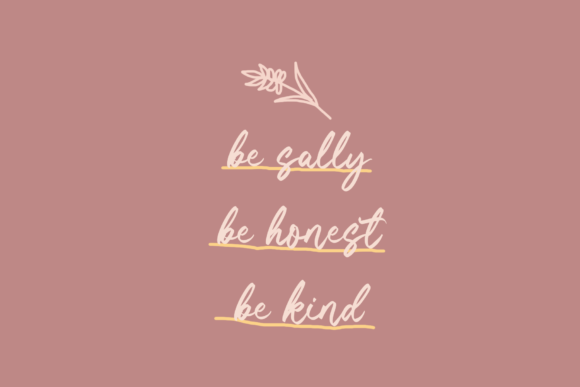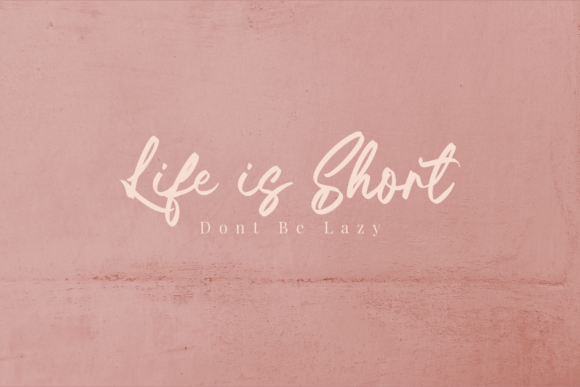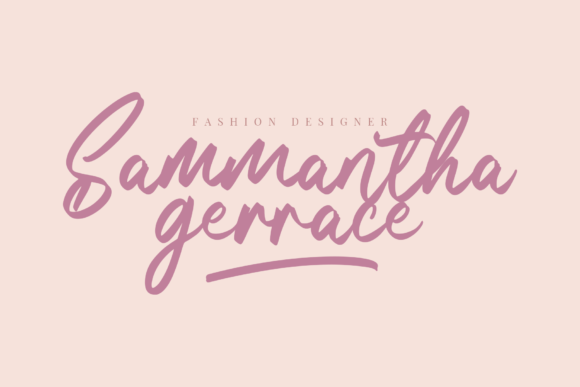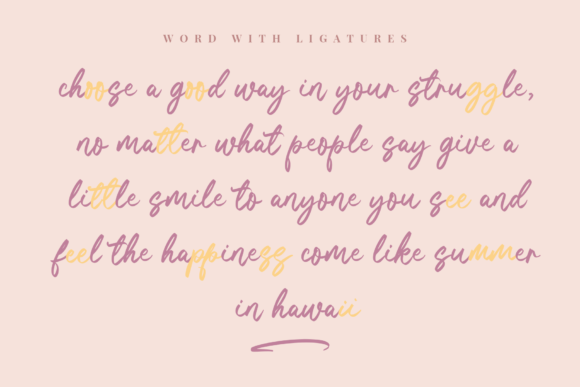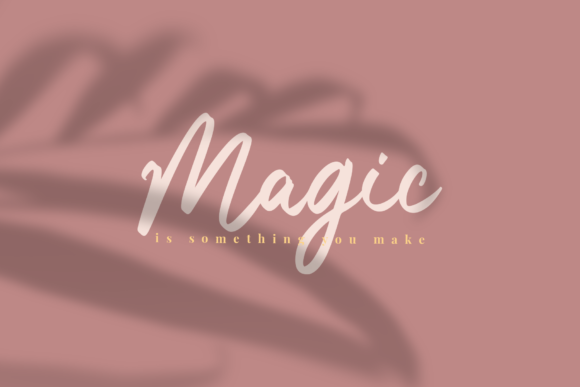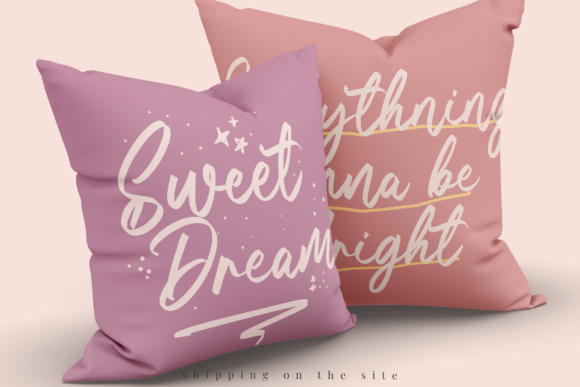
Introducing Amore Eiffel Font: Elevate Your Designs with Elegance
Are you a designer or crafter looking for a font that can add a touch of sophistication and elegance to your creative projects? Look no further than Amore Eiffel Font. This beautiful, elegant, and flowing handwritten font is perfect for a wide range of designs, from wedding invitations and branding materials to digital products and craft projects.
The Characteristics of Amore Eiffel Font
Amore Eiffel Font boasts well-balanced characters that make it versatile and easy to pair with various design styles. Its flowing script and elegant letterforms evoke a sense of luxury and refinement, making it ideal for projects that require a high-end feel. Whether you’re creating a romantic wedding invitation or a sophisticated brand identity, Amore Eiffel Font is sure to impress.
Why Choose Amore Eiffel Font?
So, what sets Amore Eiffel Font apart from other fonts? Here are just a few reasons why designers and crafters love this beautiful font:
- Elegant and sophisticated: Amore Eiffel Font has a refined, high-end feel that’s perfect for luxury brands, wedding designs, and other high-end projects.
- Versatile: With its well-balanced characters and flowing script, Amore Eiffel Font pairs well with a wide range of design styles, from modern and minimalist to vintage and ornate.
- Easy to read: Despite its elegant and cursive nature, Amore Eiffel Font is surprisingly easy to read, making it perfect for body text and other longer-form content.
- Unique and distinctive: Amore Eiffel Font has a distinctive character that sets it apart from more traditional fonts, making it perfect for designers who want to create something truly unique.
How to Use Amore Eiffel Font in Your Designs
- Wedding invitations and stationery: Amore Eiffel Font is perfect for creating romantic and elegant wedding invitations, save-the-dates, and other stationery.
- Branding and packaging: Use Amore Eiffel Font to create sophisticated brand identities, product labels, and packaging that stands out on store shelves.
- Digital products: Add Amore Eiffel Font to your digital products, such as ebooks, printables, and planners, to give them a high-end feel.
- Craft projects: Amore Eiffel Font is perfect for crafters who want to add a touch of elegance to their projects, from handmade cards and gift tags to DIY home decor.
Tips for Pairing Amore Eiffel Font with Other Fonts
To get the most out of Amore Eiffel Font, try pairing it with other fonts that complement its elegant and sophisticated style. Here are a few tips:
- Pair with a sans-serif font: Pair Amore Eiffel Font with a clean and modern sans-serif font, such as Arial or Helvetica, to create a striking contrast.
- Match with a serif font: For a more traditional look, pair Amore Eiffel Font with a serif font, such as Times New Roman or Georgia.
- Experiment with script fonts: Amore Eiffel Font also pairs well with other script fonts, such as Pacifico or Great Vibes, to create a unique and elegant look.
In conclusion, Amore Eiffel Font is a beautiful, elegant, and flowing handwritten font that’s perfect for designers and crafters who want to add a touch of sophistication to their creative projects. With its well-balanced characters, elegant letterforms, and versatility, Amore Eiffel Font is sure to become a staple in your design toolkit. So why wait? Download Amore Eiffel Font today and start elevating your designs with elegance!